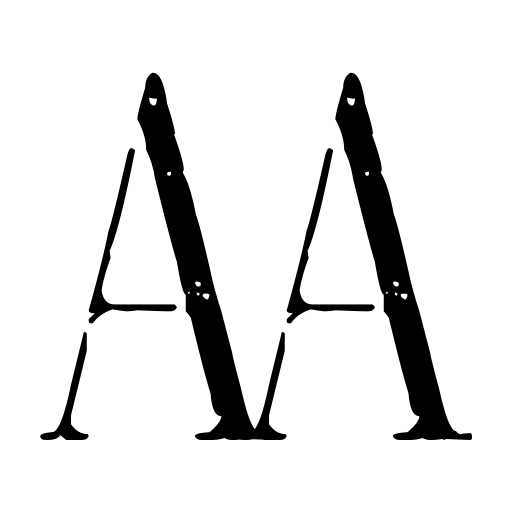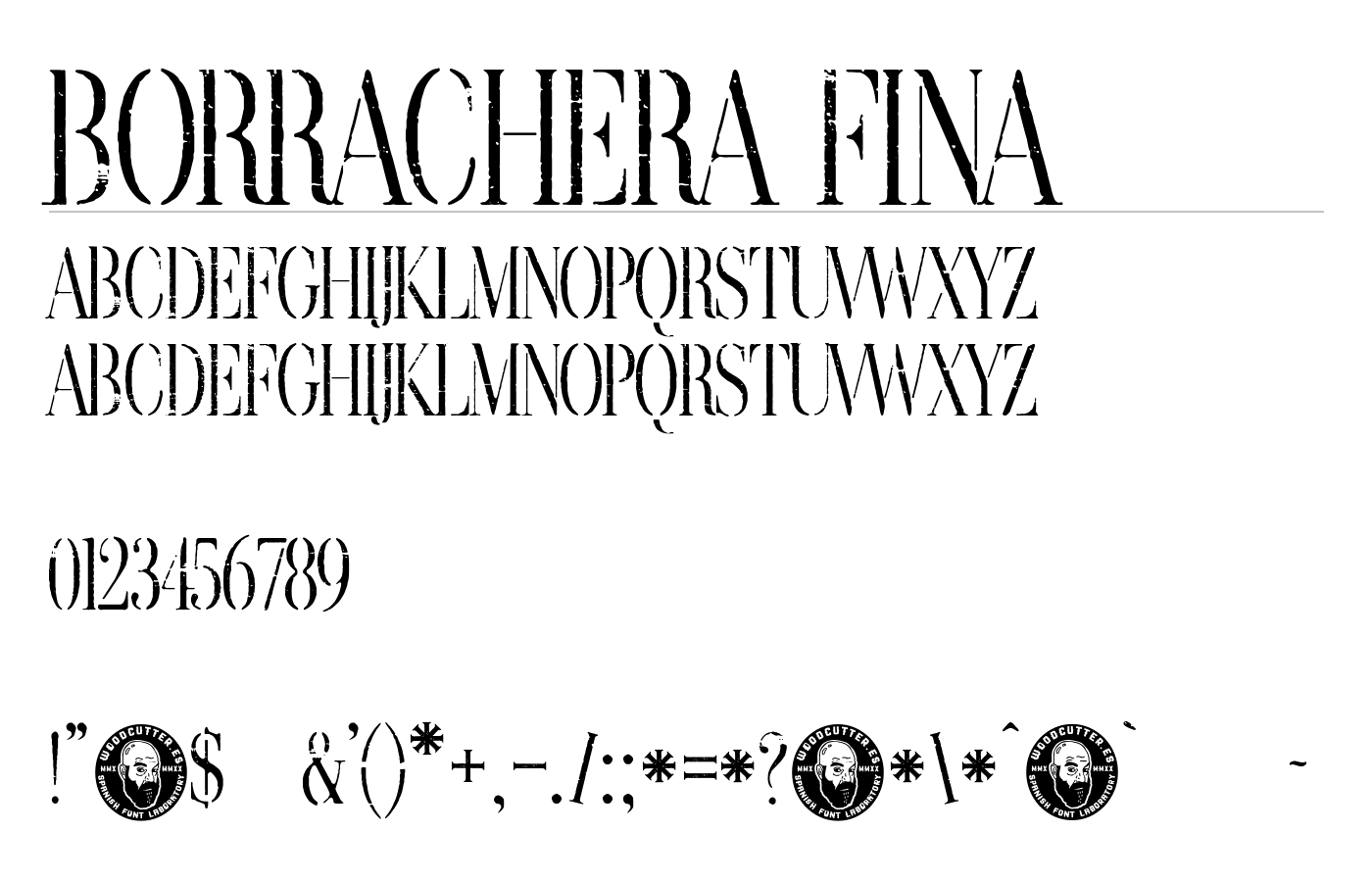
Borrachera Fina is a tall, condensed serif font with a vintage, distressed texture that gives it a worn, edgy character. Its sharp, thin serifs and high contrast strokes evoke a classic yet rebellious feel, perfect for designs seeking a bold, rustic elegance. This font works great for posters, branding, and editorial projects where a strong, dramatic impact is desired.
Borrachera Fina Font
About Borrachera Fina Font